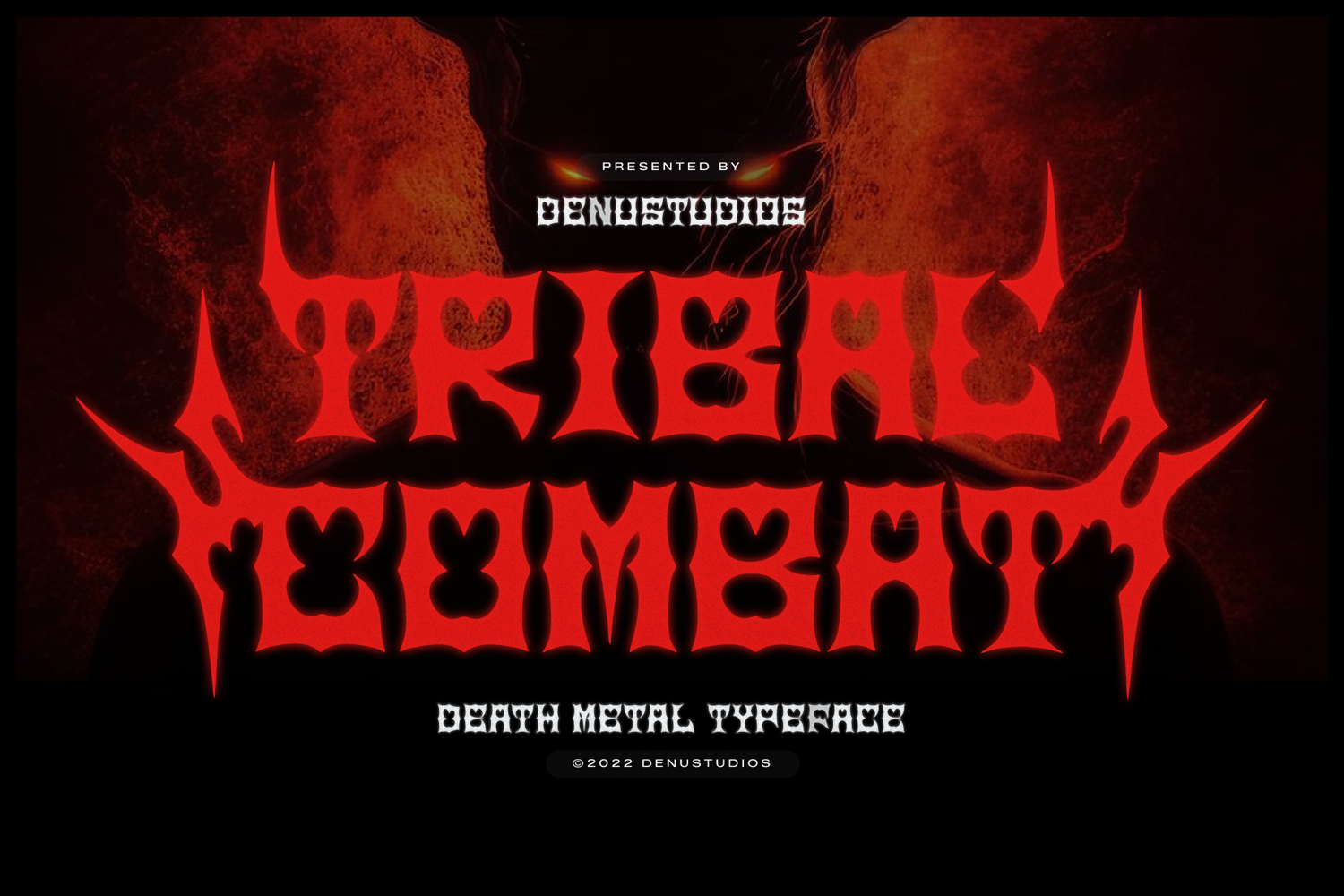
Tribal Combat | Death Metal Typeface, from Denustudios, suitable for any projects such as: logos, branding projects, homeware designs, product packaging, mugs, quotes, posters, shopping bags, t-shirts, book covers, name card, invitation cards, greeting cards, label, photography, watermark, special events, and all your other lovely projects that need a Death Metal taste.